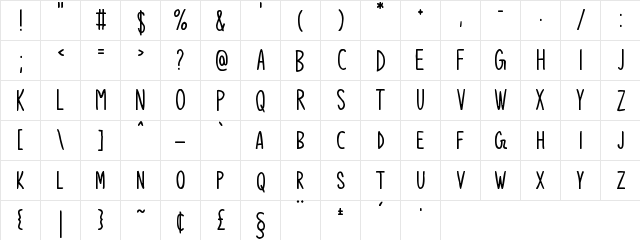
Hello Dreamer Regular
Design Context for Hello Dreamer Typeface
Hello Dreamer is a composed and adaptable typeface that performs quietly and consistently across a wide range of design contexts.